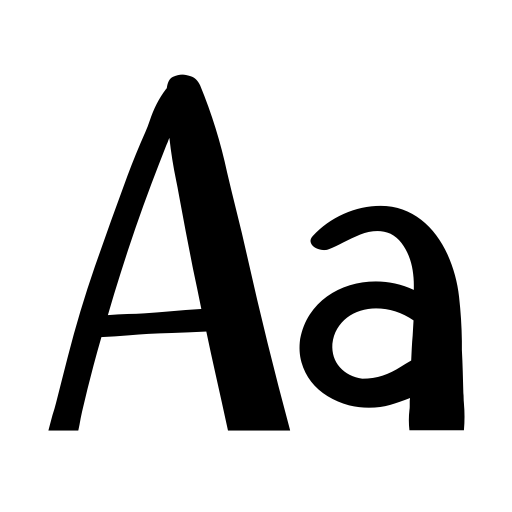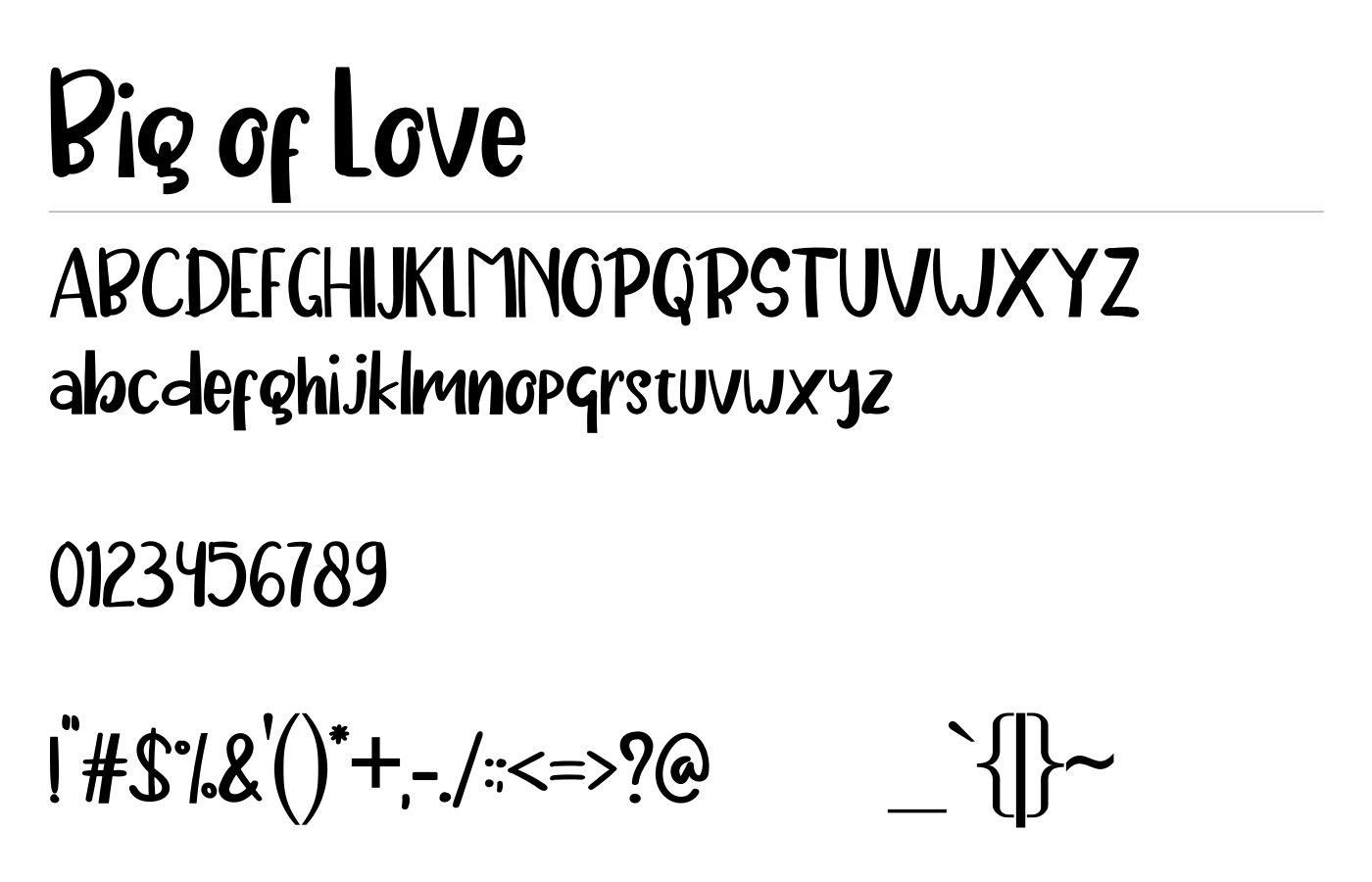
Big of Love is a playful, casual sans-serif font with a hand-drawn feel, featuring slightly irregular, rounded letterforms that bring warmth and friendliness. Its upright, medium-weight strokes and quirky details make it perfect for creative projects, informal branding, and fun headlines where a personal and approachable vibe is desired. This font works well in designs that aim to feel inviting and cheerful, such as children's products, lifestyle blogs, or casual event invitations.
Big of Love Font
About Big of Love Font